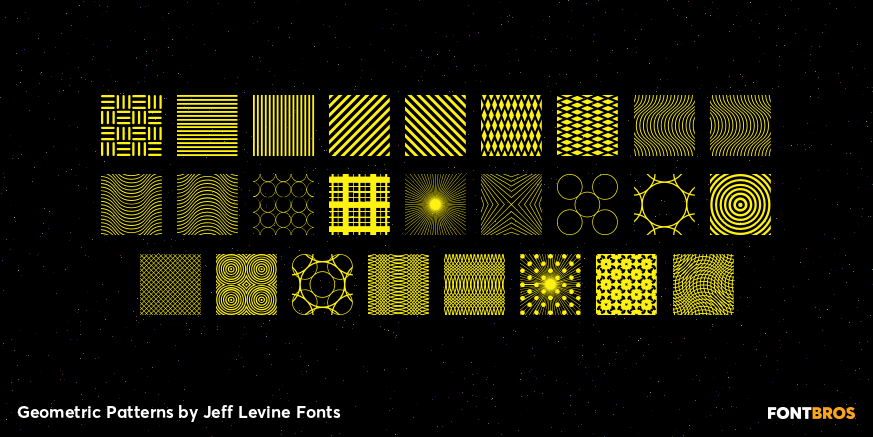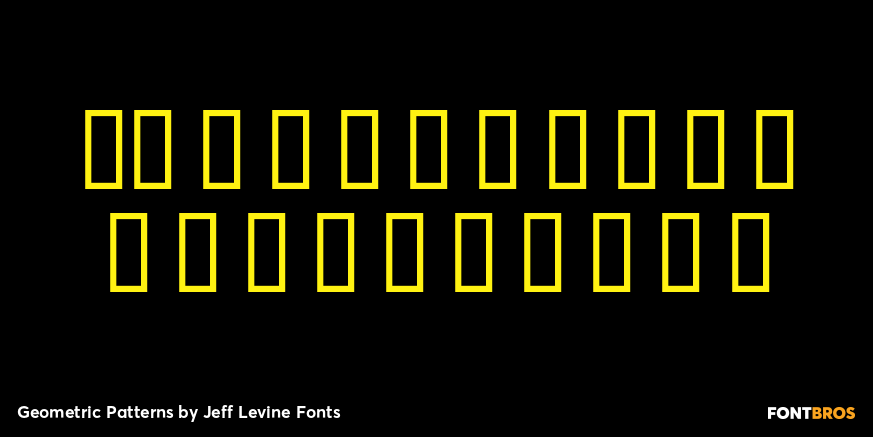
Geometric Patterns
Geometric Patterns JNL offers a large and varied assortment of interesting design variations in a 'tiled' (square) format that can be adapted to spot embellishments, running borders or repetitive patterns.